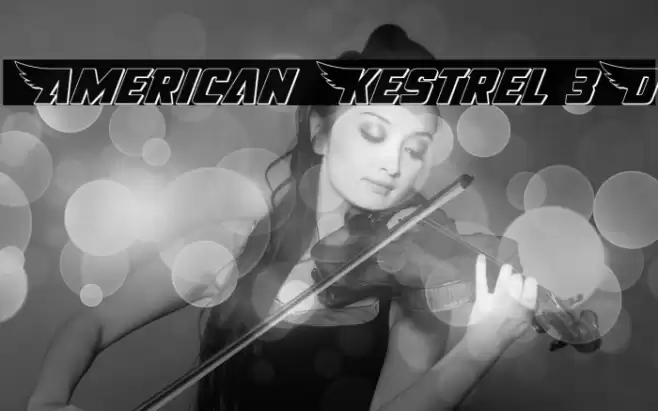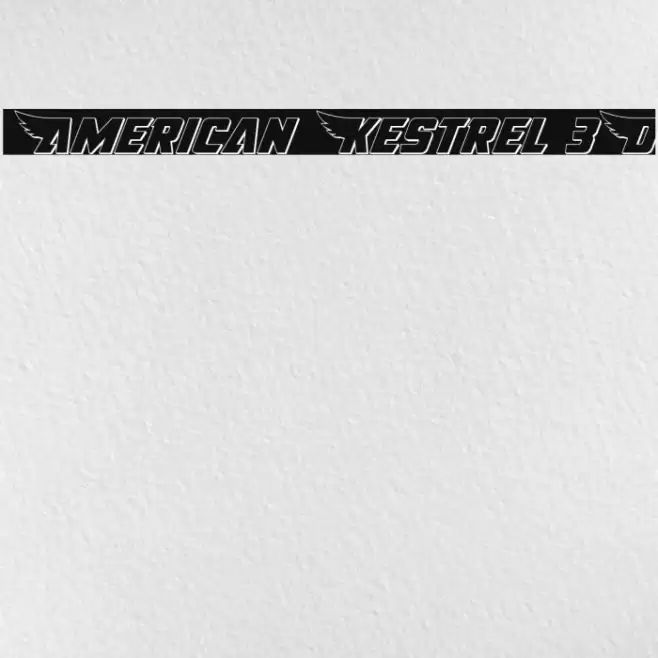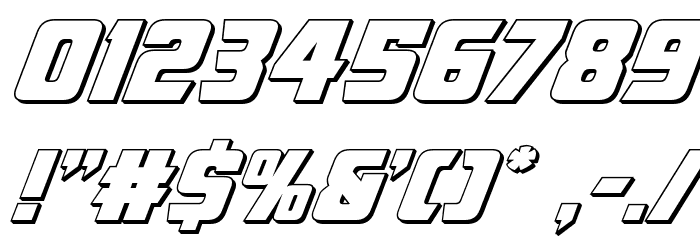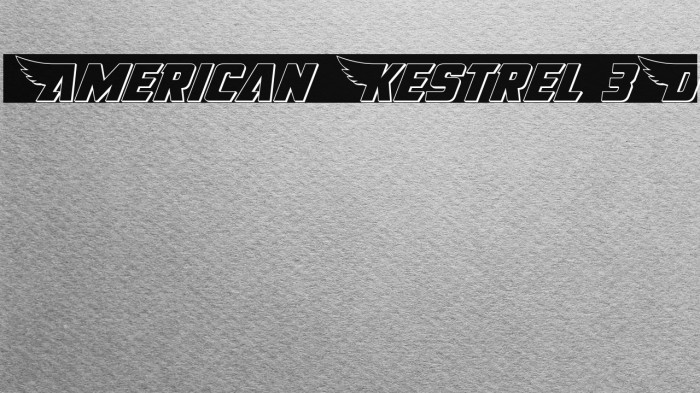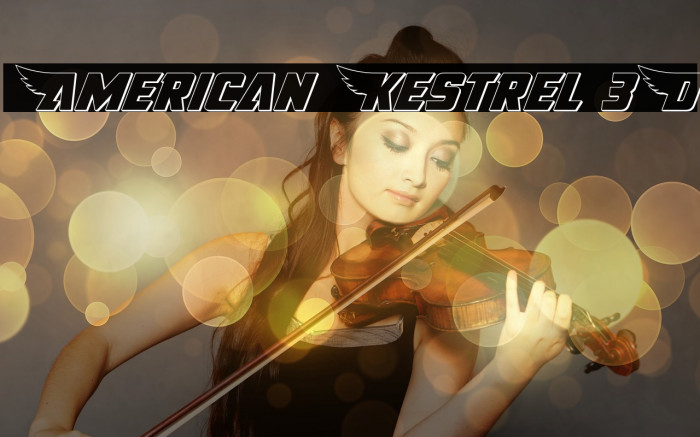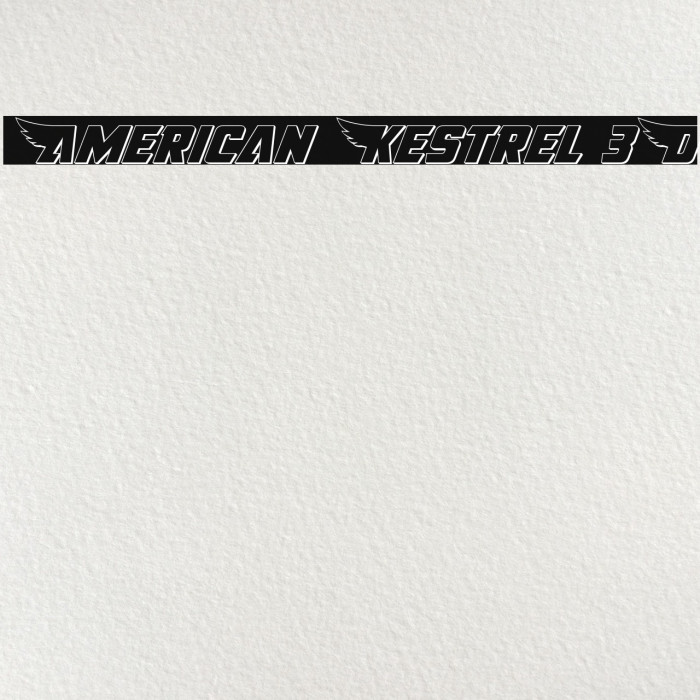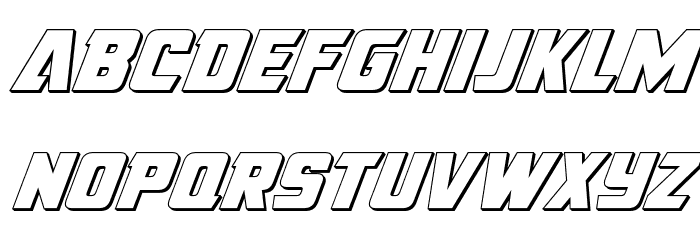
American Kestrel 3D Font
American Kestrel 3D Description
This font features a bold and dynamic design with a distinct 3D effect, creating a sense of depth and movement. Each character is outlined, enhancing its visibility and impact. The uppercase letters are particularly striking, with sharp angles and a modern aesthetic that suggests speed and agility. The inclusion of wing-like elements on some characters adds a unique flair, making it ideal for projects that require a sense of motion or flight. The numbers and special characters maintain the same bold style, ensuring consistency across all text elements. This font is perfect for attention-grabbing headlines, logos, and branding materials that need to convey energy and modernity.
A bold, 3D font with dynamic outlines and wing-like accents, ideal for modern, energetic designs from Uncategorized fonts.
- Proposed Projects: Perfect for sports team logos, dynamic posters, video game titles, and any project needing a sense of speed and modernity.